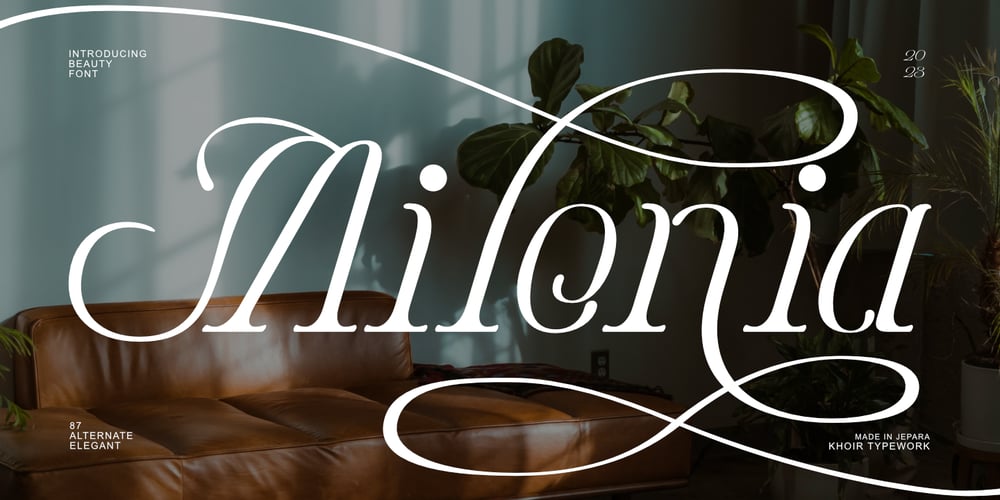
Milonia Font Family was designed by Muhammad Romzul Khoir and published by Khoir. Milonia contains 1 styles and family package options. Milonia – Serif font that prioritizes beauty with beautiful letter shapes and beautiful tails, has many alternative font choices that can support your design to be perfect.What’s included? Uppercase Characters Lowercase Characters Support 75+ Language 87 Alternative FEATURESMilonia